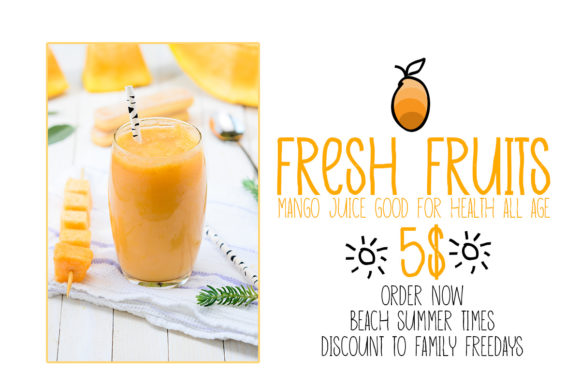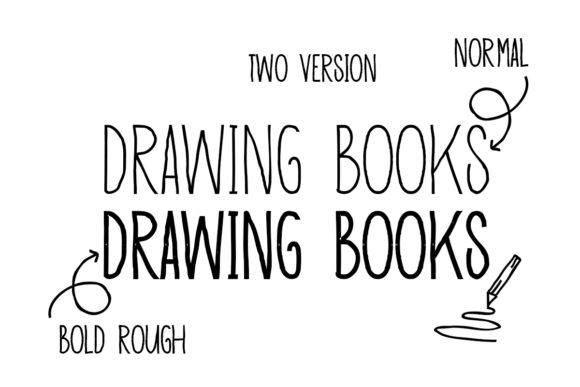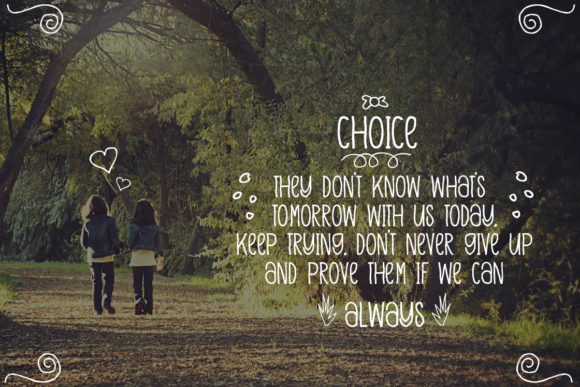
Drawing Books Font: A Charming Display Font for Creative Projects
Are you a designer or crafter looking for a unique and authentic font to elevate your creative projects? Look no further than the Drawing Books Font! This charming display font is perfect for creating gorgeous invitations, beautiful stationary art, eye-catching social media posts, and cute greeting cards.
What is Drawing Books Font?
Drawing Books Font is a carefully crafted display font that mimics the authentic feel of hand-drawn illustrations. Its rustic and whimsical design makes it perfect for projects that require a personal touch. The font features beautiful imperfections and irregularities that give it a unique and organic feel.
Key Features of Drawing Books Font
- Authentic feel: Drawing Books Font has a genuine, hand-drawn look that will add a touch of warmth and personality to your projects.
- Charming design: The font’s rustic and whimsical design makes it perfect for creating beautiful and eye-catching visual content.
- High-quality: The font is carefully crafted to ensure high-quality and clear rendering, even at large sizes.
- Multipurpose: Drawing Books Font is versatile and can be used for a wide range of projects, from invitations and greeting cards to social media posts and stationary art.
Use Cases for Drawing Books Font
Drawing Books Font is perfect for designers and crafters who want to add a personal touch to their projects. Here are some use cases to get you started:
- Invitations: Create beautiful and unique invitations for weddings, birthday parties, and other special occasions.
- Stationary art: Use Drawing Books Font to create stunning stationary art, including journals, planners, and greeting cards.
- Social media posts: Add a touch of personality to your social media posts with Drawing Books Font. It’s perfect for creating eye-catching graphics and quotes.
- Greeting cards: Create cute and charming greeting cards for special occasions, such as birthdays, holidays, and anniversaries.
Tips for Using Drawing Books Font
Here are some tips to help you get the most out of Drawing Books Font:
- Experiment with colors: Drawing Books Font looks great with a range of colors, from bright and bold to soft and pastel.
- Mix and match: Combine Drawing Books Font with other fonts to create unique and interesting visual effects.
- Pay attention to spacing: Make sure to adjust the spacing between letters to ensure the font looks natural and authentic.
- Use it sparingly: Drawing Books Font is a display font, so use it sparingly to add emphasis and personality to your projects.
Drawing Books Font is a charming display font that’s perfect for designers and crafters who want to add a personal touch to their projects. With its authentic feel, charming design, and high-quality rendering, it’s ideal for creating gorgeous invitations, beautiful stationary art, eye-catching social media posts, and cute greeting cards. So why not give it a try and see how it can elevate your creative projects?